Looking for the best cut out fonts for your next design projects? These types of fonts will give a funny and cinematic look to your design projects. These fonts are designed by using the paper cutout of newspaper and magazine fonts. You can see these fonts in movies as ransom notes, this font style will give a cinematic look to your design projects. You can use these fonts for designing flyer templates, invitation cards and social media posts for your clients. These typefaces are designed by using the paper cutouts of newspapers and magazines to give a realistoc look to the projects. Use the fonts for designing kindergarten flyers and kids camp flyers.
In this article we have included some of the best free and premium fonts to design unique ransom notes. In this article you get different types of fonts that are cut out from newspapers, magazines and comic books. These font style will give a realistic style look to your movie and video projects. You can customize the font swashes on the text and design a unique style project. Change the color and size of the text by using these font style. Select the best font from the below collection and design unique projects.
Creative Urban Cut Out Display Fonts
If yuo are looking to give a urban style look to your design projects then these font style are perfect for you. This is a all caps style fonts that can be used for designing website header images, social media posts and invitation cards. The edgy style of the fonts will give a quirky style look to the projects. Make perfect use of the fonts for designing unique style posters and web design projects for clients.
These are a handdrawn style paper fonts that will give a creative look to your design projects. If you are working on projects related to kids then these font style are perfect for you. In this pack you get 360 different letter cut outs and 100 different hand drawn numbers. Make use of the combination to design unique style print and web design templates for your clients. You also get different types of cut outs for punctuations to give a comic look to the projects.
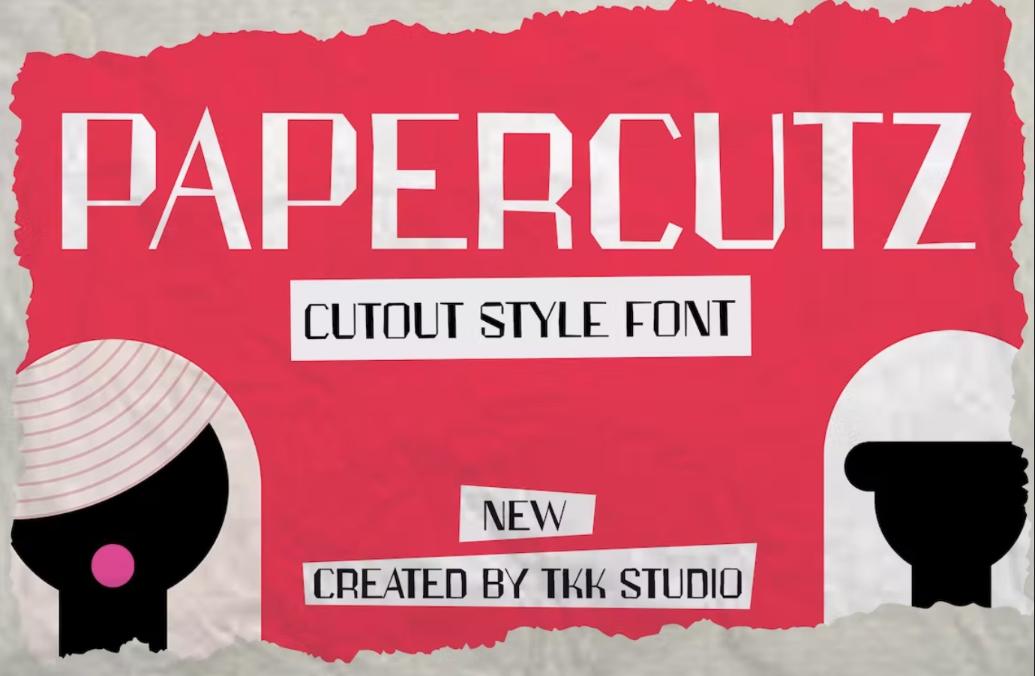
If you are looking to give a geometric style look to your cut out fonts then these typefaces are perfect for you. These type of fonts are perfect for designing book covers, movie posters, magazine covers and Youtube thumbnails. In this pack you get different characters and numbers in the pack that can be used for designing book covers, invitations and greeting cards. You can install these fonts on your Mac and PC devices easily.
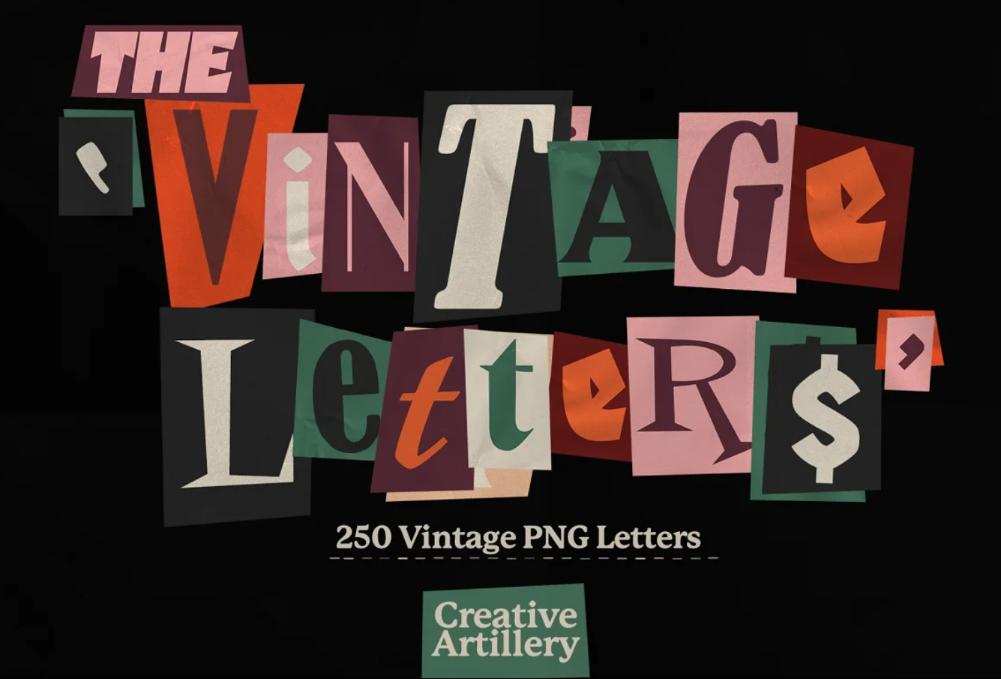
High-Quality Kids Font
Creative Paper Cut Fonts
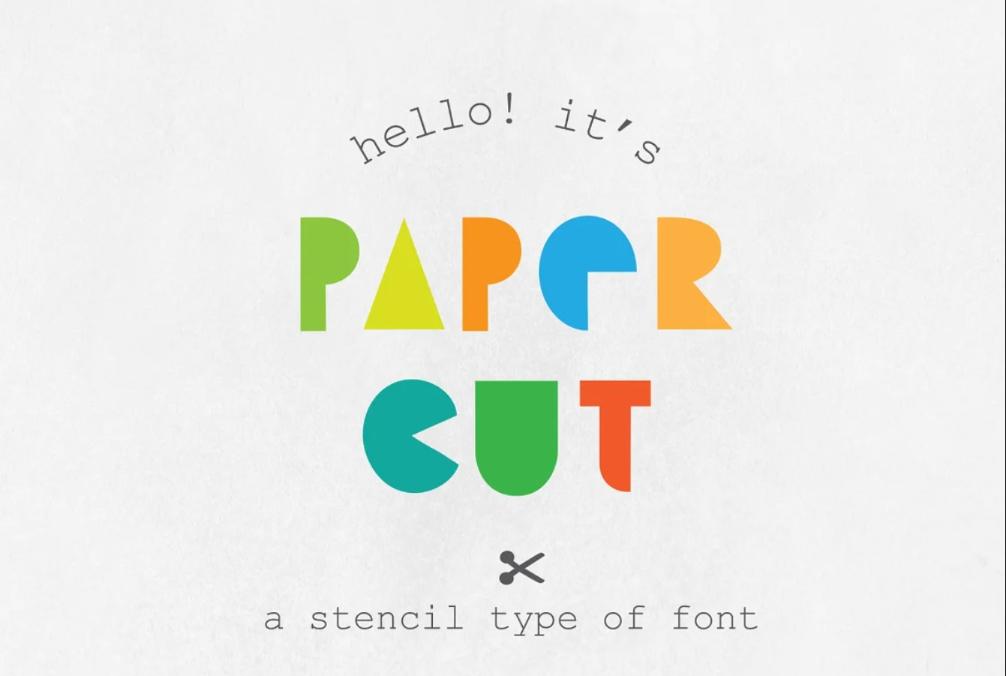
Cheerful Style Display Typeface
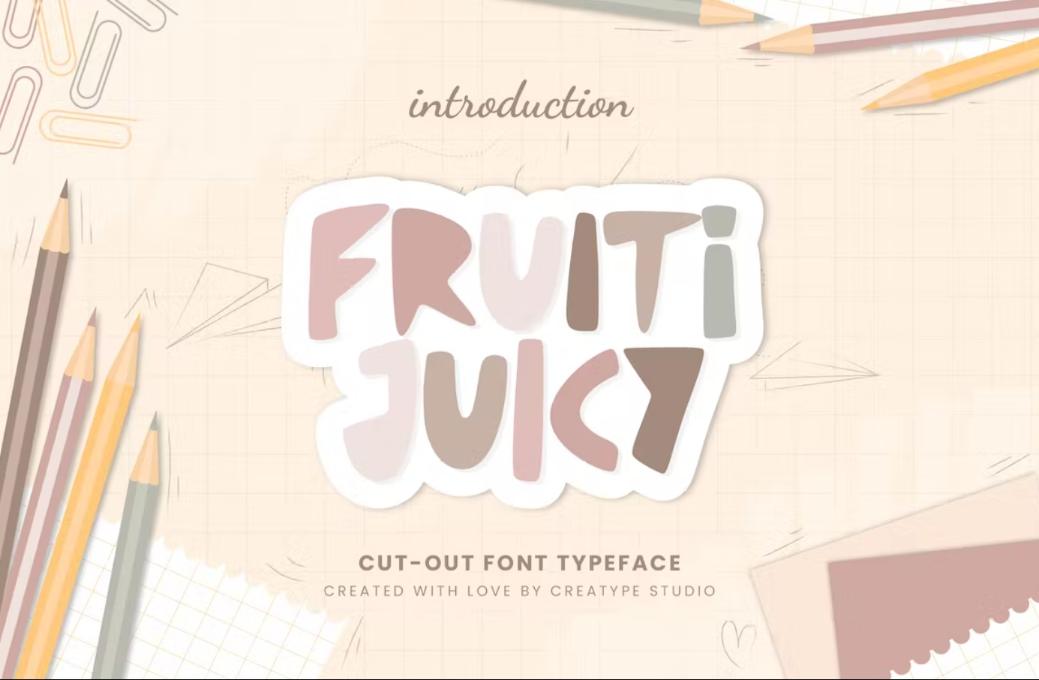
Creative Collage Style Typeface
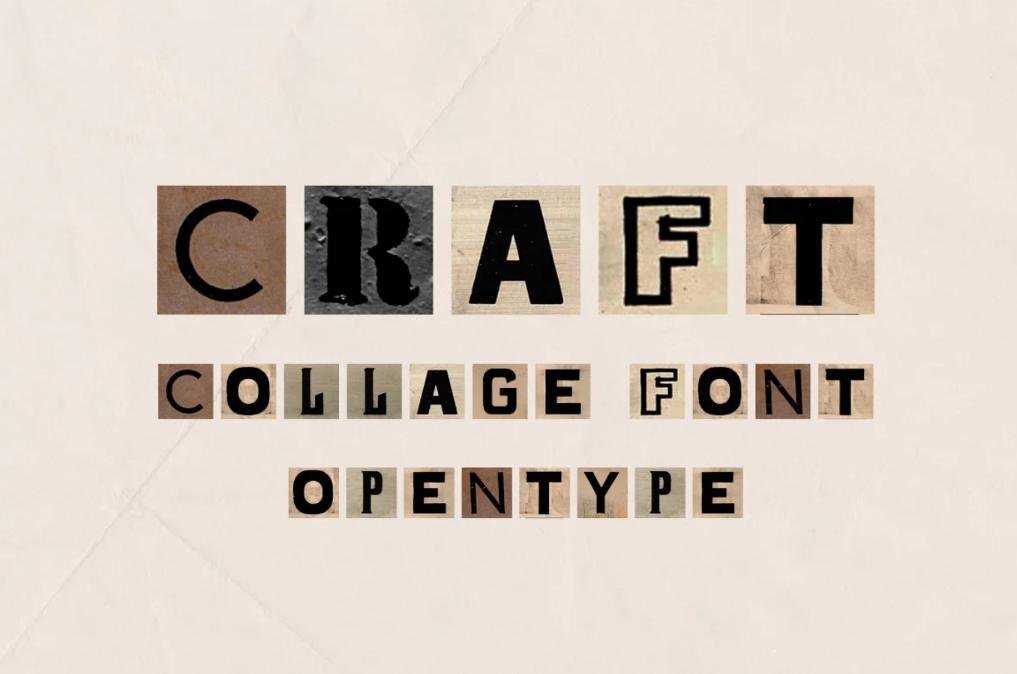
Hitchcock Style Display Fonts
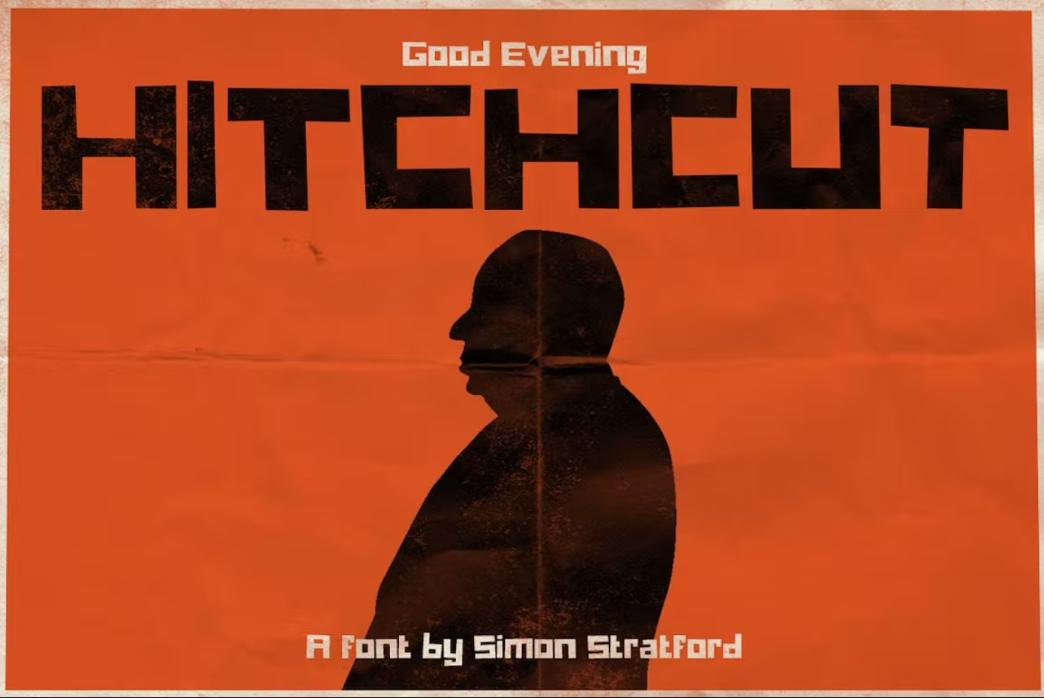
Hand-Cut Ransom Letters
Creative Cut and Paste Fonts
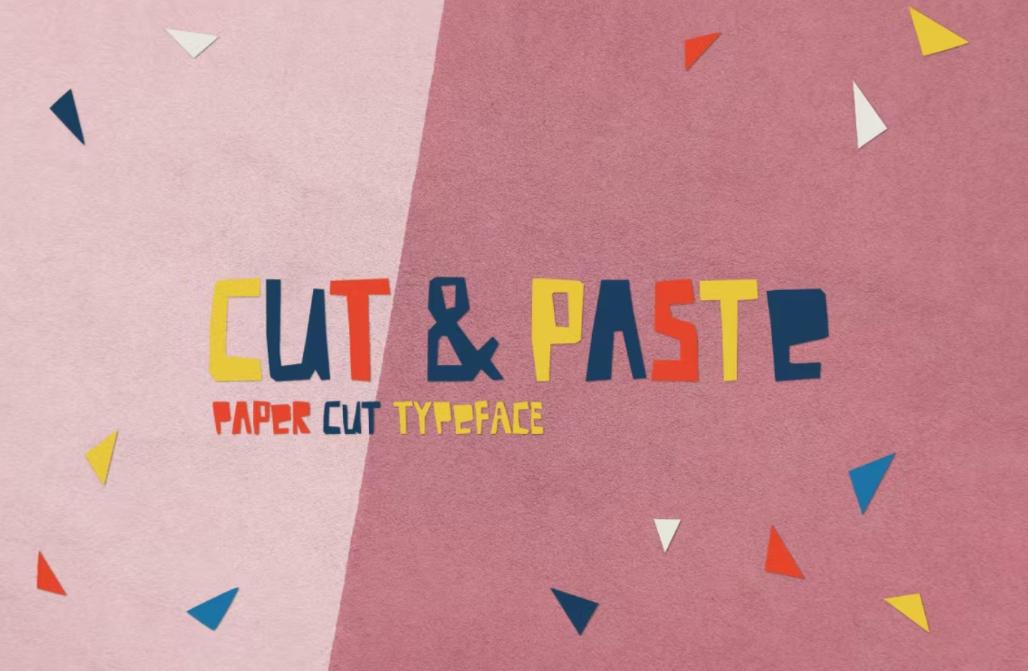
Creative Magazine Letters Set
Free Ransom Note Fonts
Free Black and White Ransom Note Fonts
Creative Fun Display Typeface
Free Creative Display Fonts
Free Decorative Script Fonts
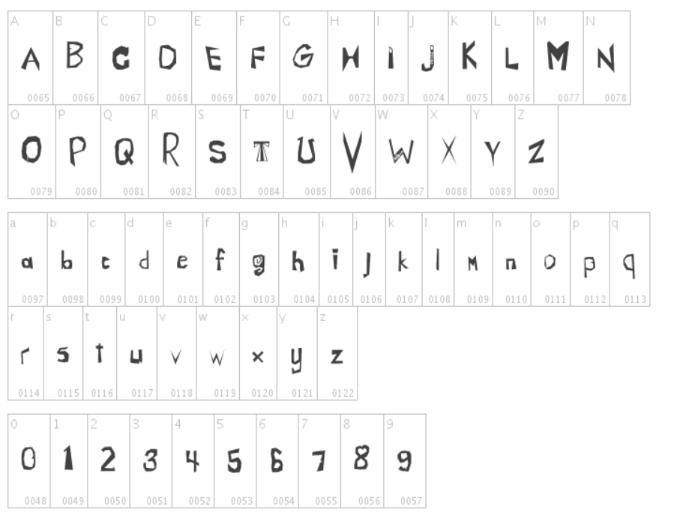
Creative Paper Cut Typefaces